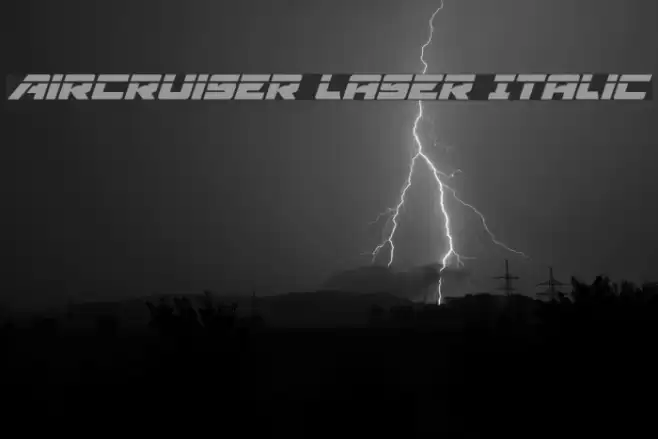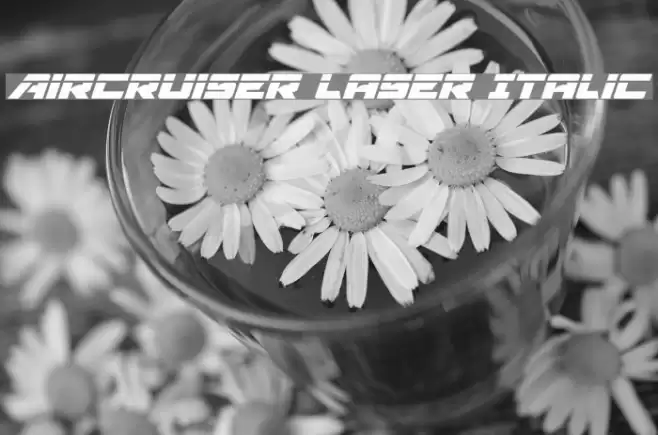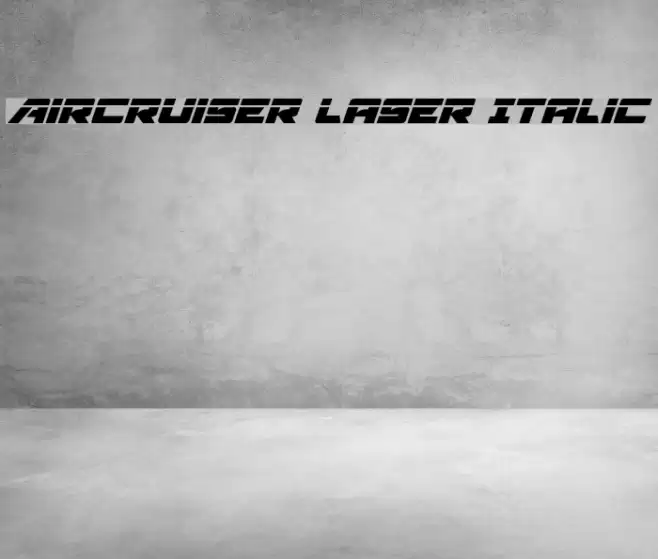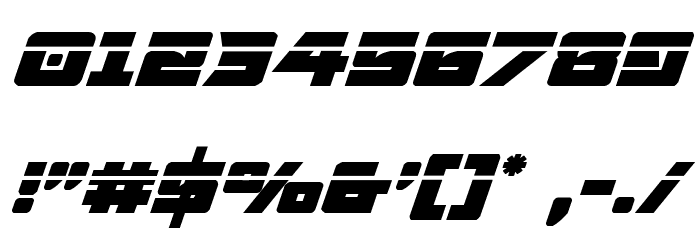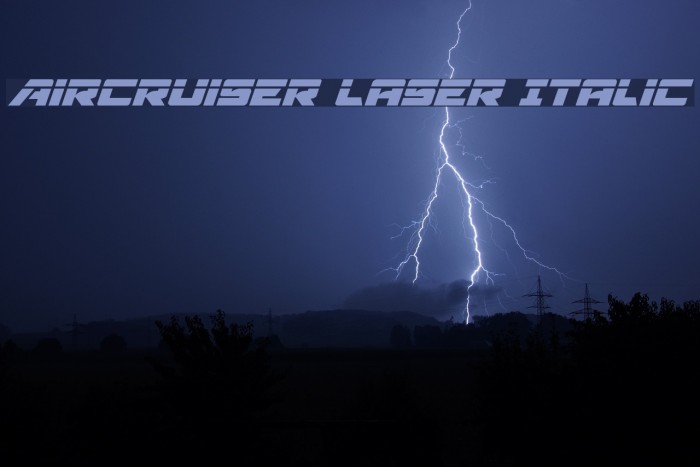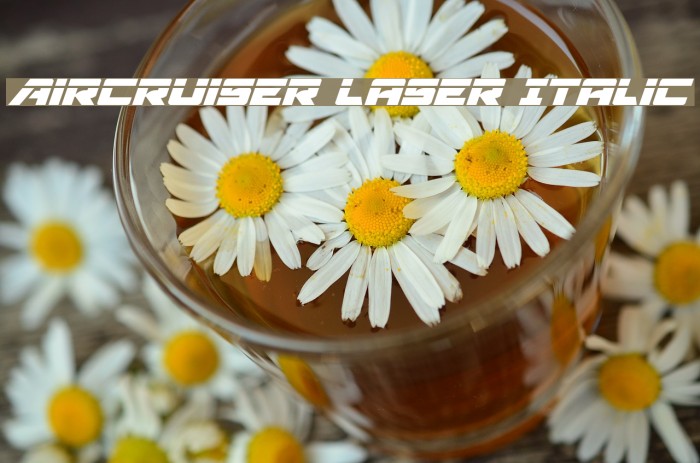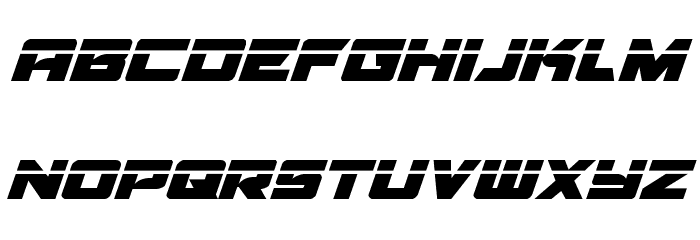
Aircruiser Laser Italic Font
Aircruiser Laser Italic Description
This font features a futuristic and dynamic design with sharp, angular edges and a distinct italic slant. The characters are bold and impactful, with a geometric structure that conveys a sense of speed and modernity. The uppercase and lowercase letters maintain a consistent style, while the numerals and special characters integrate seamlessly into the overall aesthetic. The font's unique design makes it stand out, ideal for projects that require a strong visual presence.
A bold, italic, futuristic font with sharp, angular edges from Uncategorized fonts.
- Proposed Projects: Ideal for sci-fi themed designs, video game titles, technology branding, and dynamic posters.